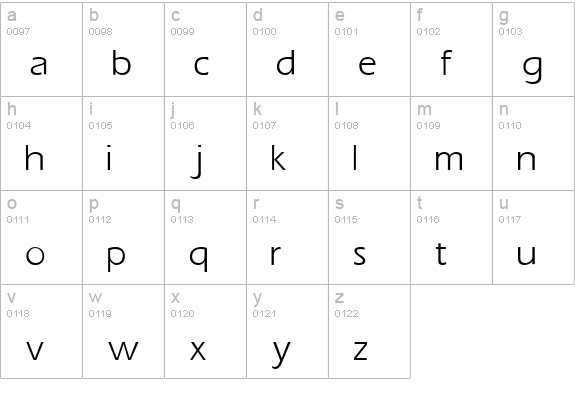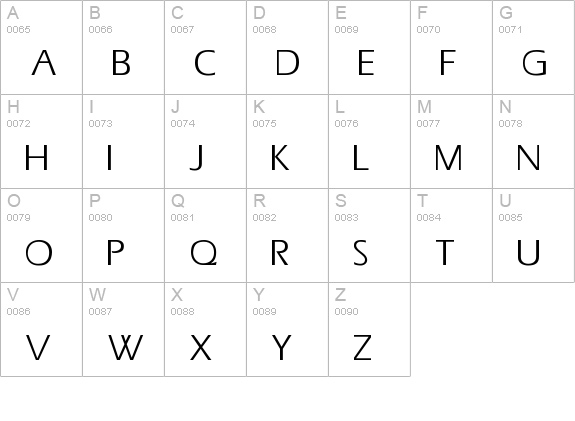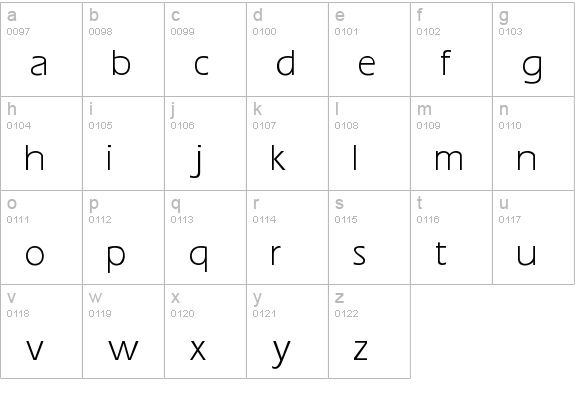
Speedo Book SSi Book is a comfortable, highly readable variant in the Speedo typeface family \xE2\x80\x94 well suited to long-form body text, articles, and editorial content.
The Speedo Book SSi Book font is a sleek and modern typeface that exudes elegance and sophistication. Its clean lines and balanced proportions make it perfect for a wide range of design projects, from branding and advertising to editorial and web design. This font features a bold yet refined appearance, with slightly rounded edges that add a touch of softness to its overall look. Its legibility is enhanced by its generous letter spacing, ensuring that every word is easily readable even at smaller sizes. With its versatility and timeless appeal, the Speedo Book SSi Book font is a must-have for designers looking to make a lasting impression. Whether you're creating a logo for a high-end fashion brand or designing a magazine spread, this font will elevate your design and bring it to the next level. One of the best things about the Speedo Book SSi Book font is that it is freely available to download at FontsMarket.com. This means that you can easily access this high-quality font without any cost, making it a valuable resource for both professional designers and hobbyists alike. So why wait? Download the Speedo Book SSi Book font today and unlock a world of possibilities for your design projects. With its impeccable style and the added bonus of being free, this font is a true gem that should not be missed. Get ready to elevate your typography game and create stunning designs that leave a lasting impression on your audience.